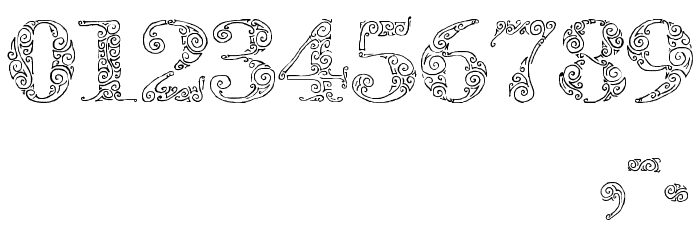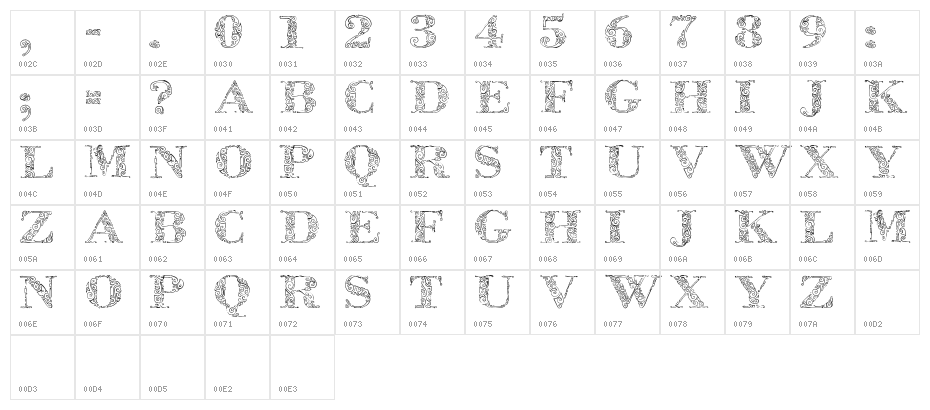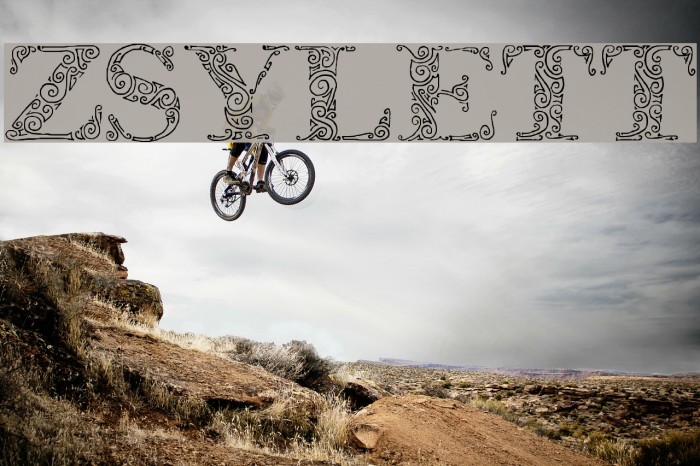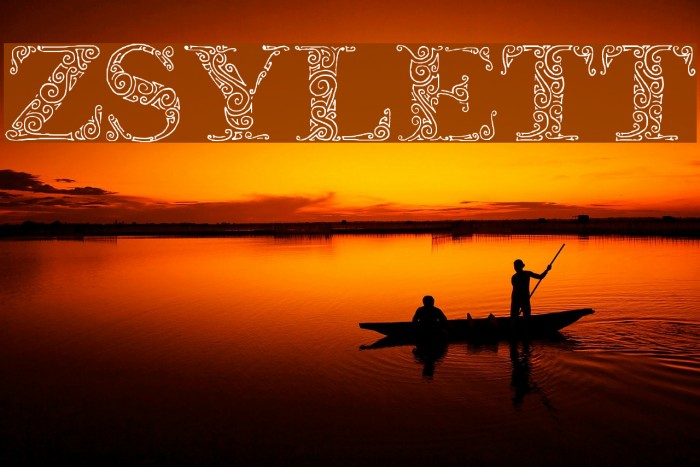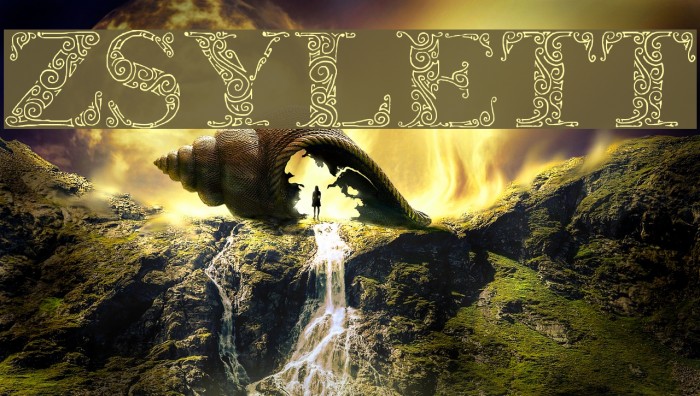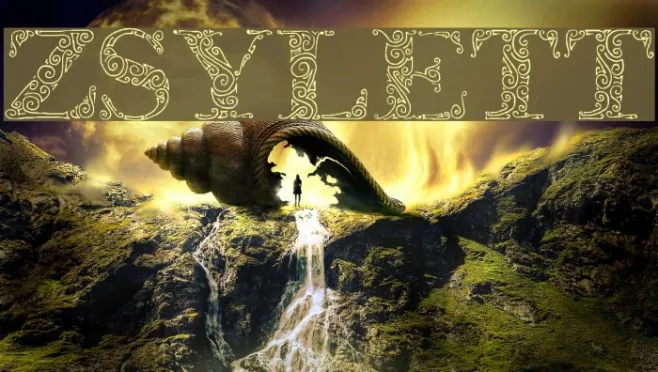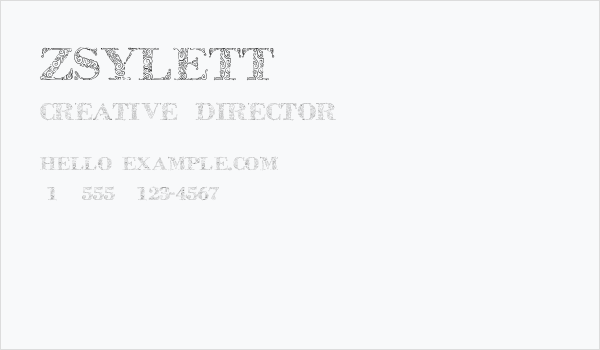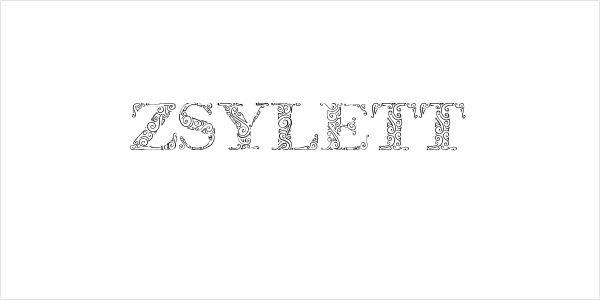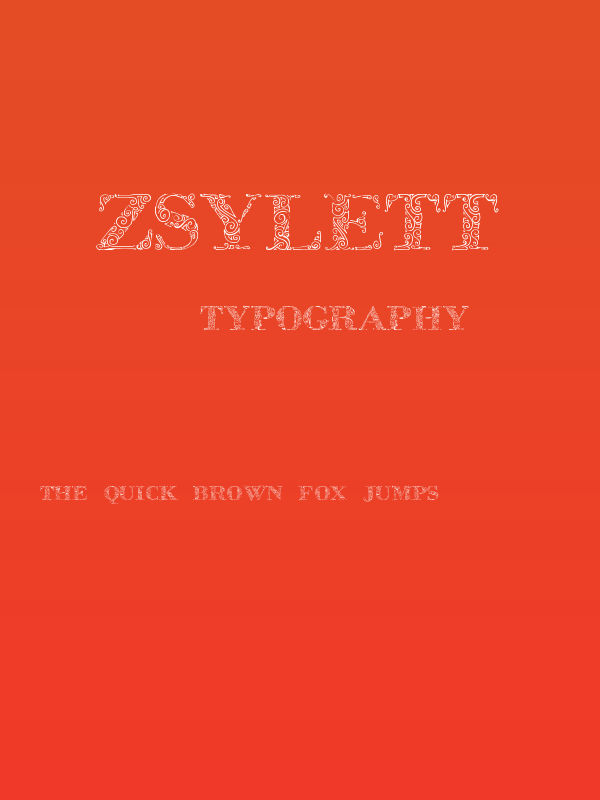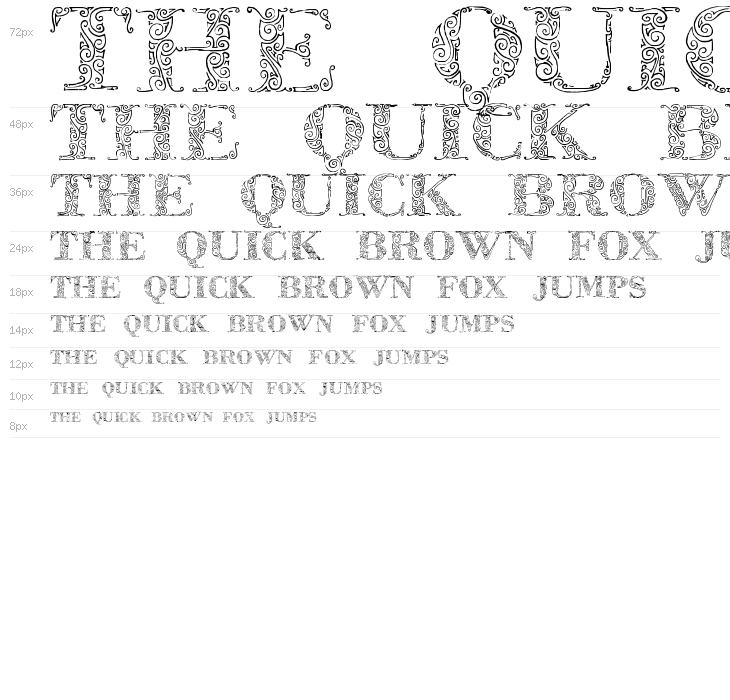
Zsylett Font
Zsylett Description
This font is a highly decorative and ornate typeface that features intricate floral and swirl patterns within each character. The uppercase and lowercase letters, as well as the numbers, are embellished with detailed embellishments that give the font a vintage and artistic feel. The characters are bold and have a strong presence, making them suitable for attention-grabbing designs. The overall style is reminiscent of Victorian or Baroque aesthetics, with a touch of elegance and sophistication. The font's unique design makes it ideal for projects that require a touch of luxury and creativity.
| Proposed Projects | Ideal for wedding invitations, luxury branding, vintage posters, and artistic projects that require a decorative touch. |